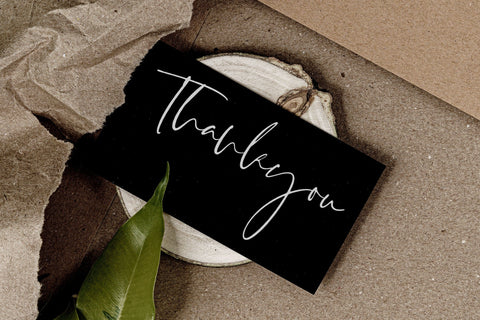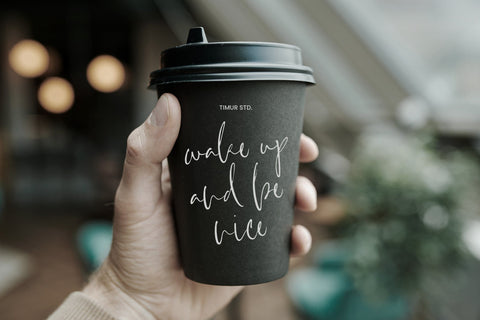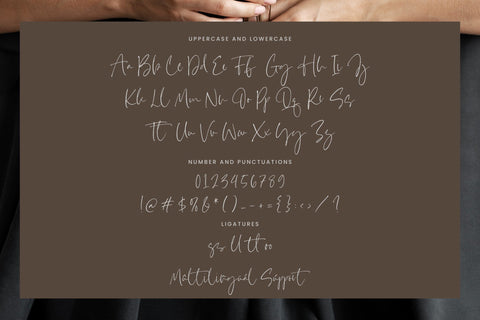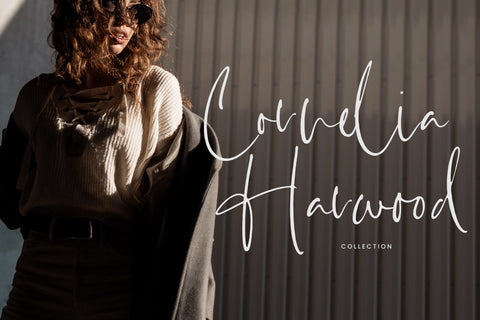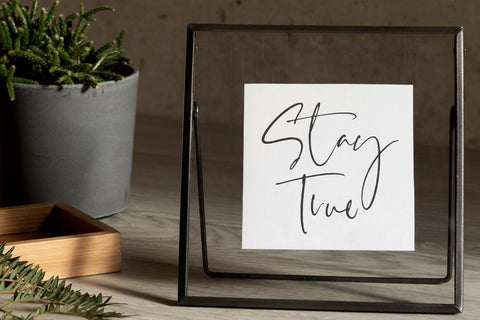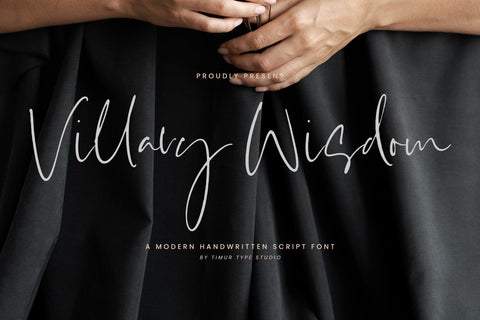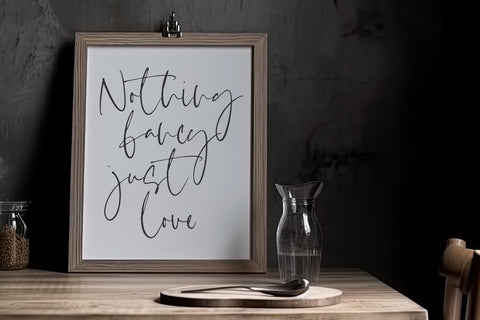
Villary Wisdom - Modern Handwritten Script Font
Villary Wisdom is a Modern Handwritten Script Font
This font is a contemporary handwritten script font that exudes effortless elegance. Its flowing, cursive lines and charming loops make it perfect for adding a personal, artistic touch to invitations, branding, and creative projects. With its graceful strokes and balanced spacing, Villary Wisdom combines modern sophistication with a touch of whimsy, making it a versatile choice for both formal and casual designs.
Villary Wisdom also supports multilingualism